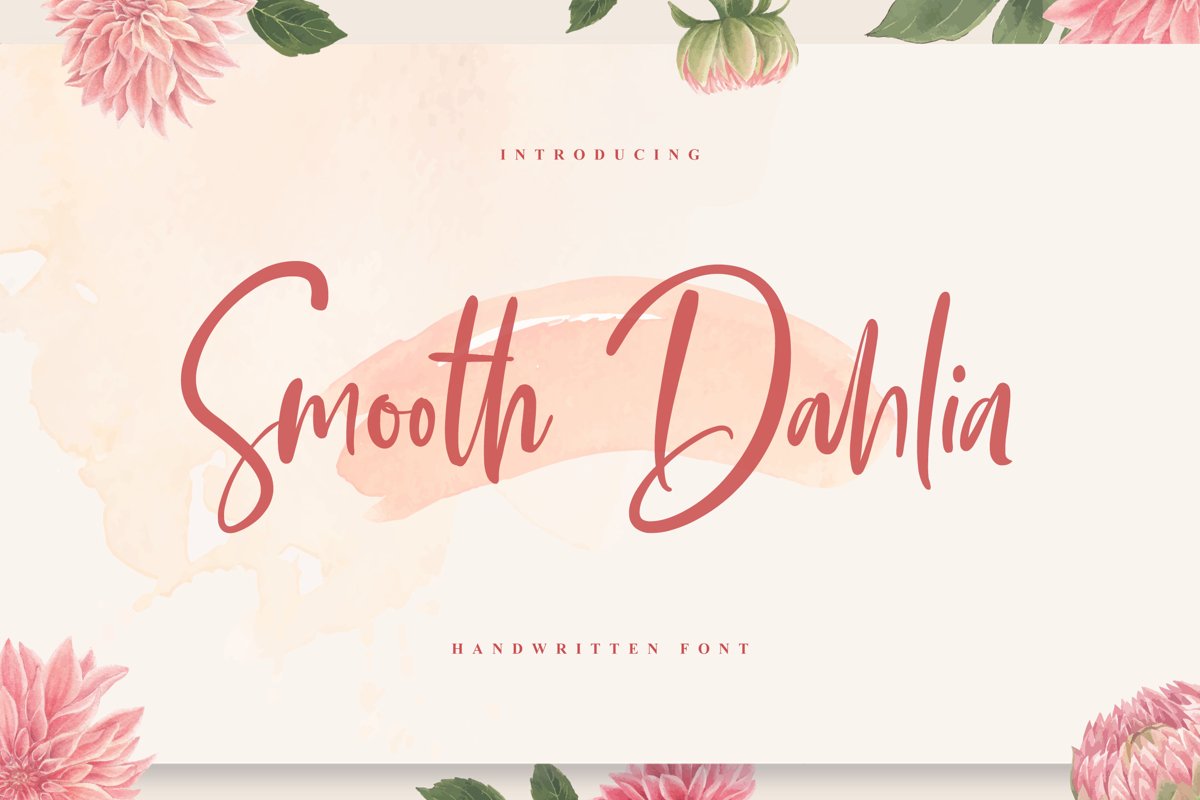
Smooth Dahlia
This is my new font, 'Smooth Dahlia'.
it have Very smooth font shape, perfect for your upcoming project.
'Smooth Dahlia' font has natural cursive shape, perfect for valentine card, fashion brand clothing,
wedding invitations, business card, your Summer project, banner, flyer, etc.
With 61 Ligatures Opentype, Smooth Dahlia Font can make your project look natural and Casual feel too.